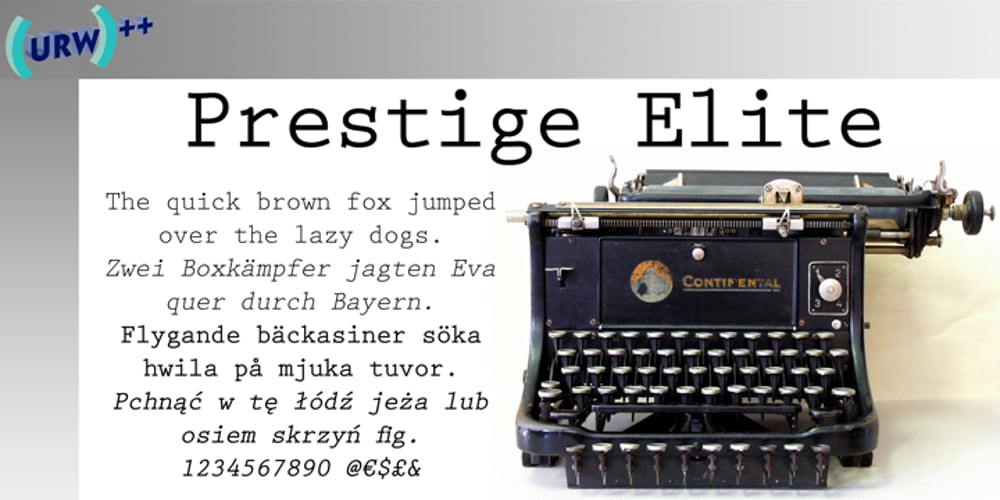
Prestige Elite M Font Family was designed by Clayton Smith and published by URW Type Foundry. Prestige Elite M contains 4 styles and family package options. Prestige Elite is a word processor face which offers clear and monospaced type. The slanted versions have kept the same design as the roman font. The word Elite denoted a specific size of typewriter face. The Prestige Elite font family is easy to read, even in small sizes and is useful for tabular material with narrow columns, such as directories and lists.